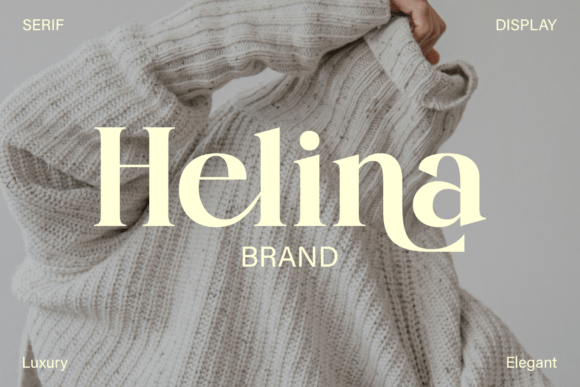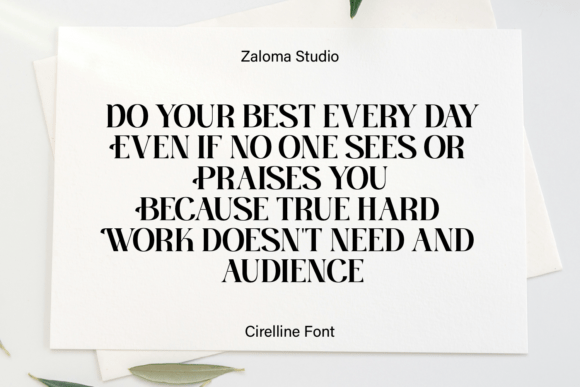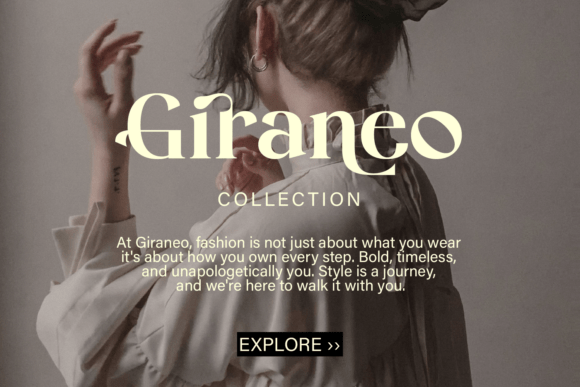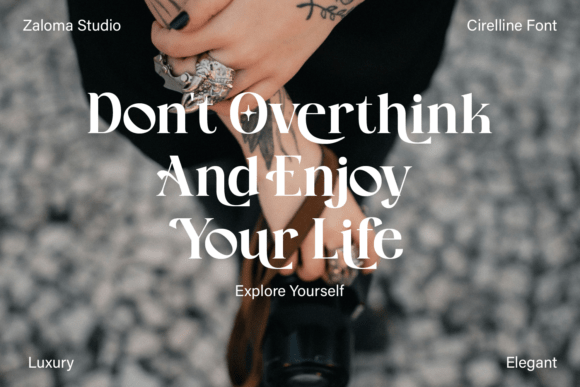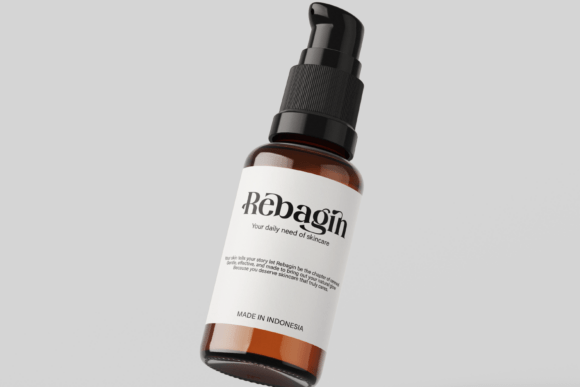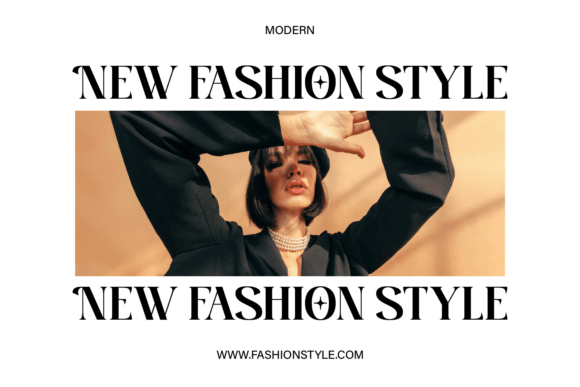
Introduction to Cirelline Font
As a designer, there’s no greater thrill than witnessing a creative project come to life. For many of us, it’s the moment when all the elements – typography, color, texture – converge to create something truly breathtaking. It’s a feeling that’s hard to replicate, but one font is sure to give you that ‘aha’ moment: the Cirelline Font.
With its delicate serifs and balanced contrast, the Cirelline Font is a masterclass in elegance and sophistication. Whether you’re working on a premium branding project, a fashion magazine, or a wedding invitation, this font is the perfect design resource to elevate your work to the next level. And the best part? You can download it for free, giving you the freedom to experiment with your creative vision without any limitations.
For designers who crave high-quality typography, the Cirelline Font is a treasure trove of inspiration. Its transparent background and refined detailing make it a versatile choice for any creative project, from editorial layouts to cosmetic packaging designs. With the Cirelline Font, you’ll be able to create designs that exude luxury and sophistication, setting your work apart from the rest.
Key Features of Cirelline Font
- Unique, modern design with a transparent background for versatile use
- Perfect for designers and artists looking for a modern, creative font for their next project
Honest Review: Cirelline Font
I recently stumbled upon the Cirelline Font and I must say it’s been a game-changer for my design projects. As a designer, I’m always on the lookout for high-quality fonts that can elevate my work and help me express my creativity. The Cirelline Font definitely delivers.
- The font is highly customizable, allowing me to adjust the weight, size, and style to suit my design needs.
- The transparent background makes it perfect for use on images and videos, giving my creative projects a sleek and modern look.
- The font’s style may not appeal to all designers, as it’s quite unique and quirky.
Overall, I’m thoroughly impressed with the Cirelline Font. Its high quality, versatility, and free availability make it a valuable resource for designers working on creative projects. I would definitely recommend it to anyone looking for a unique and stylish font.
For the best results, use the Cirelline Font on a transparent background. This will allow the font to stand out and add a professional touch to your designs. Experiment with different font sizes and styles to find the perfect look for your creative project.
The Cirelline Font is perfect for: